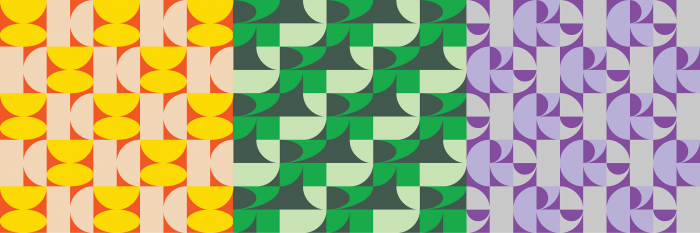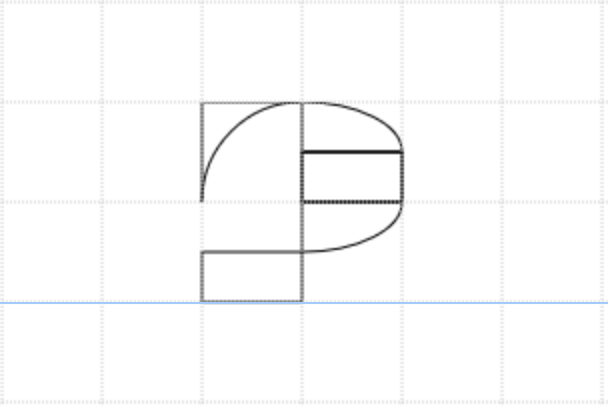
• Newt is a spinoff from Salamander but reduced to a 2x2 grid system. Originally planned for 2023's iteration of 36 Days of Type, but later scrapped due to time constraints.
Congrats on the TP! What do you think about this P?
@elmoyenique: Thanks! Tried your suggestion, but I felt the curves doesn't seem to harmonise as well with the rest of the glyphs. Appreciate the thoughts nevertheless (:
looks pretty funky 👍